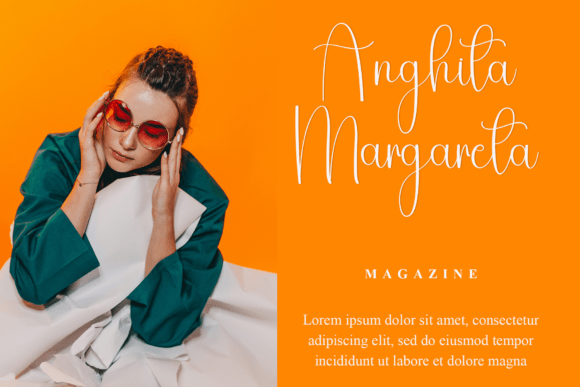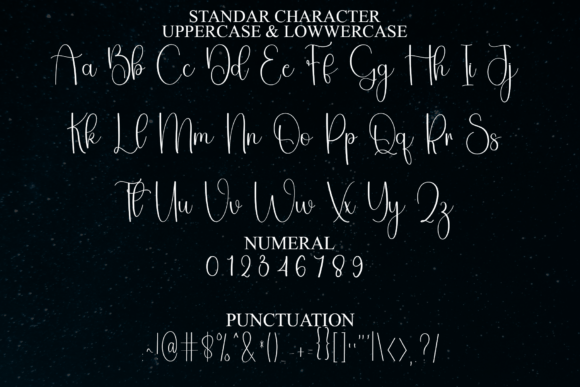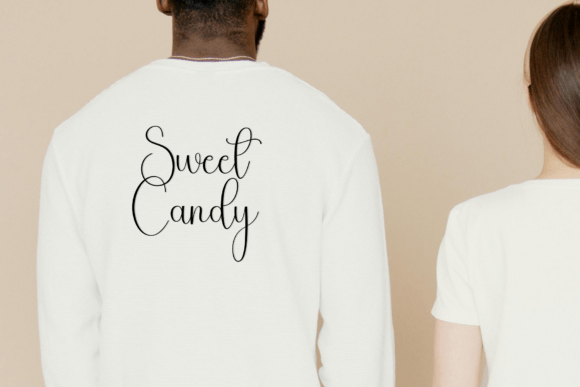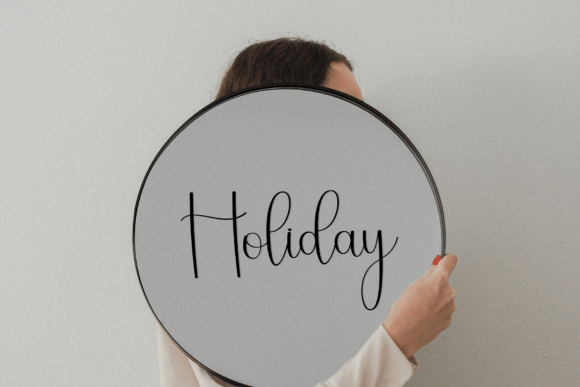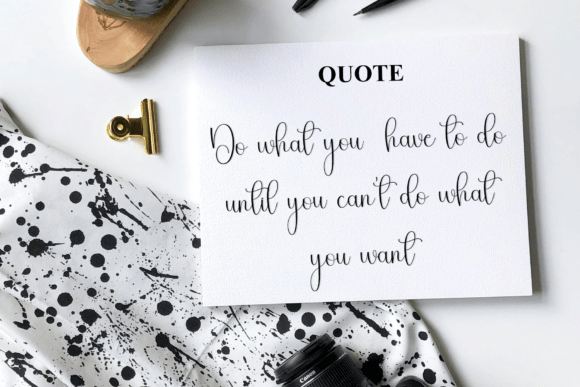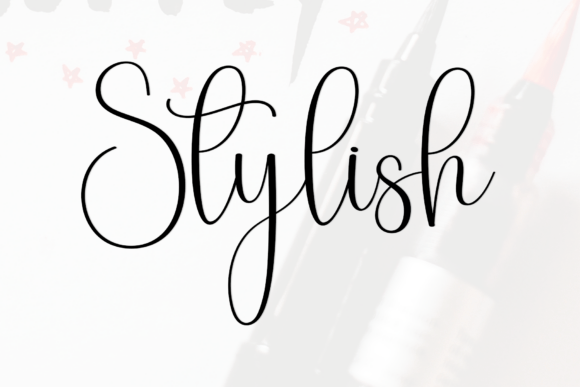
Introducing Alphabet Signature Font: Elevate Your Designs with Elegance
Are you on the hunt for a font that exudes sophistication, elegance, and a touch of modern flair? Look no further than the Alphabet Signature Font, a stunning handwritten typeface that is sure to capture your heart. This exquisite font is meticulously crafted to bring a classy, calligraphic feel to your designs while maintaining a fresh and contemporary vibe.
The Essence of Alphabet Signature Font
Alphabet Signature is more than just a font – it’s an experience. Its design is rooted in traditional calligraphy, yet it has been carefully refined to suit the demands of modern design. Whether you’re working on a branding project, crafting invitations, or creating digital content, this font is poised to become your new favorite companion.
What Makes Alphabet Signature Stand Out?
- Classy Calligraphic Influences: The font boasts beautiful, flowing lines that are reminiscent of traditional calligraphy. Each letter is a work of art, showcasing the elegance and sophistication that this style is known for.
- Contemporary and Fresh: While Alphabet Signature pays homage to classic calligraphy, it also incorporates modern elements that make it feel current and versatile. This blend of old and new ensures that your designs stand out without looking outdated.
- Versatility: From logos and branding to stationery and digital media, Alphabet Signature can be used across a wide range of projects. Its adaptability makes it an invaluable asset for designers and crafters.
- Emotional Connection: Fonts have the power to evoke emotions, and Alphabet Signature is no exception. Its warm, inviting feel can help you connect with your audience on a more personal level, making your designs more impactful.
- Branding and Logos: Create a lasting impression with a logo that combines professionalism with personality. Alphabet Signature’s unique style ensures that your brand stands out.
- Stationery and Invitations: Add a touch of luxury to your stationery, invitations, and greeting cards. The font’s elegant appearance makes it perfect for special occasions.
- Digital Content: Whether you’re designing social media graphics, blog headers, or website content, Alphabet Signature can elevate your digital presence and make your content more engaging.
- Crafting and DIY Projects: If you’re a crafter or enjoy DIY projects, Alphabet Signature can add a professional touch to your handmade items, such as personalized gifts or event decorations.
- Pair it with Complementary Fonts: While Alphabet Signature is stunning on its own, pairing it with a simple, sans-serif font can create a beautiful contrast and enhance readability.
- Experiment with Colors: Don’t be afraid to play with different colors and textures. The font’s versatility means it can look great in a variety of color schemes and design contexts.
- Pay Attention to Spacing: To maintain the font’s elegant feel, ensure that you have adequate spacing between letters and lines. This will prevent the design from feeling cluttered.